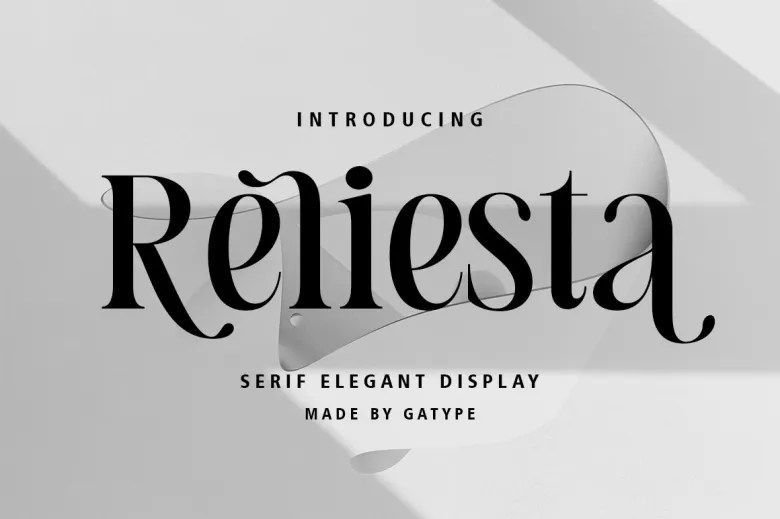
Reliesta Font
Introducing ‘Reliesta,’ a serif typeface that combines natural style with contemporary elegance, offering a perfect blend of sophistication and modernity. Designed to make a lasting impression, ‘Reliesta’ is ideal for a variety of high-impact applications.
Key Features of Reliesta Font:
• Elegant Serif Design: ‘Reliesta’ boasts a chic and refined serif style, imbuing your projects with a touch of sophistication and grace. Its elegant curves and classic design make it perfect for formal and upscale uses.
• Versatile Applications: This font shines in numerous contexts, including:
• Logo design
• Invitations
• Branding efforts
• Photography watermarks
• Social media posts
• Packaging designs
• Wedding themes
• Labels and stationery for special events and occasions
• OpenType Features: ‘Reliesta’ includes a wide range of OpenType features, ensuring flexibility and customization:
• Final and initial language styles
• Alternative characters for all lowercase letters, numerals, punctuation marks, and ligatures
• Support for multiple languages, making it versatile for global use
• Impactful First Impressions: With its refined design and contemporary flair, ‘Reliesta’ sets off any theme with an impressive first impression. Its natural elegance enhances the overall aesthetic of your projects.
• Enhanced Usability: Designed for ease of use, ‘Reliesta’ is ideal for both print and digital media. Whether you’re creating sophisticated branding materials or elegant event stationery, this font delivers consistent quality and style.
Usage:
‘Reliesta’ is perfect for enhancing:
• High-end logos
• Elegant invitations
• Branding materials
• Professional photography watermarks
• Engaging social media posts
• Stylish packaging designs
• Romantic wedding themes
• Special event labels and stationery
Elevate your design projects with the sophisticated charm of ‘Reliesta.’